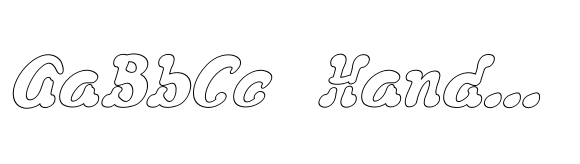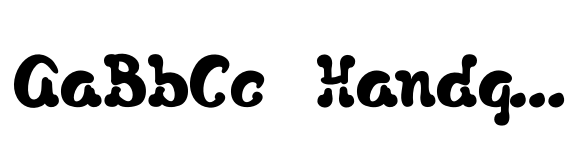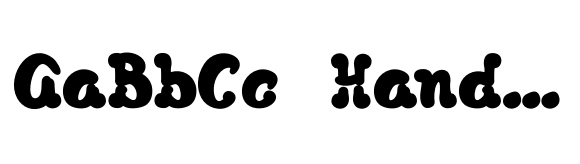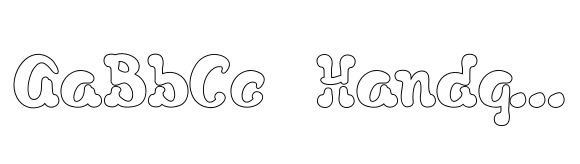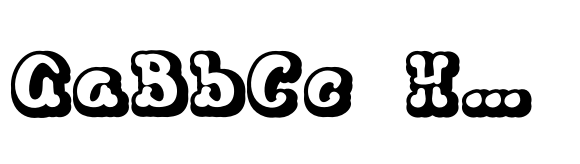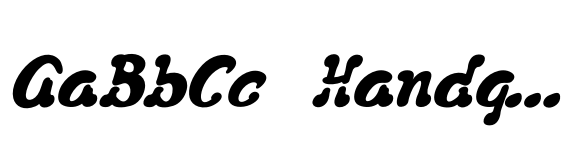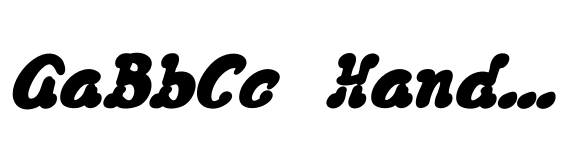
Gemini Cows
by RVM Creative
The Gemini Cows Font Family was designed by Rachel McBride and published by RVM Creative. Gemini Cows contains 7 styles and family package options.
Gemini Cows is the perfect funky, retro, bubbly font family! It includes every style you'll need to create a comprehensive website, clothing brand, poster, label, sticker, art cover, or any other graphic! This typeface is great for any project that needs both boldness and femininity. It comes with seven fonts, including
Great for any projects needing a retro or throwback feel, restaurant menus, along with book, movie, and album covers. It has a feminine and juvenile feel simultaneously and can be layered for cool effects.
It also has swash alternates to give your words some flare :)
It has 460 glyphs, supporting a variety of languages!